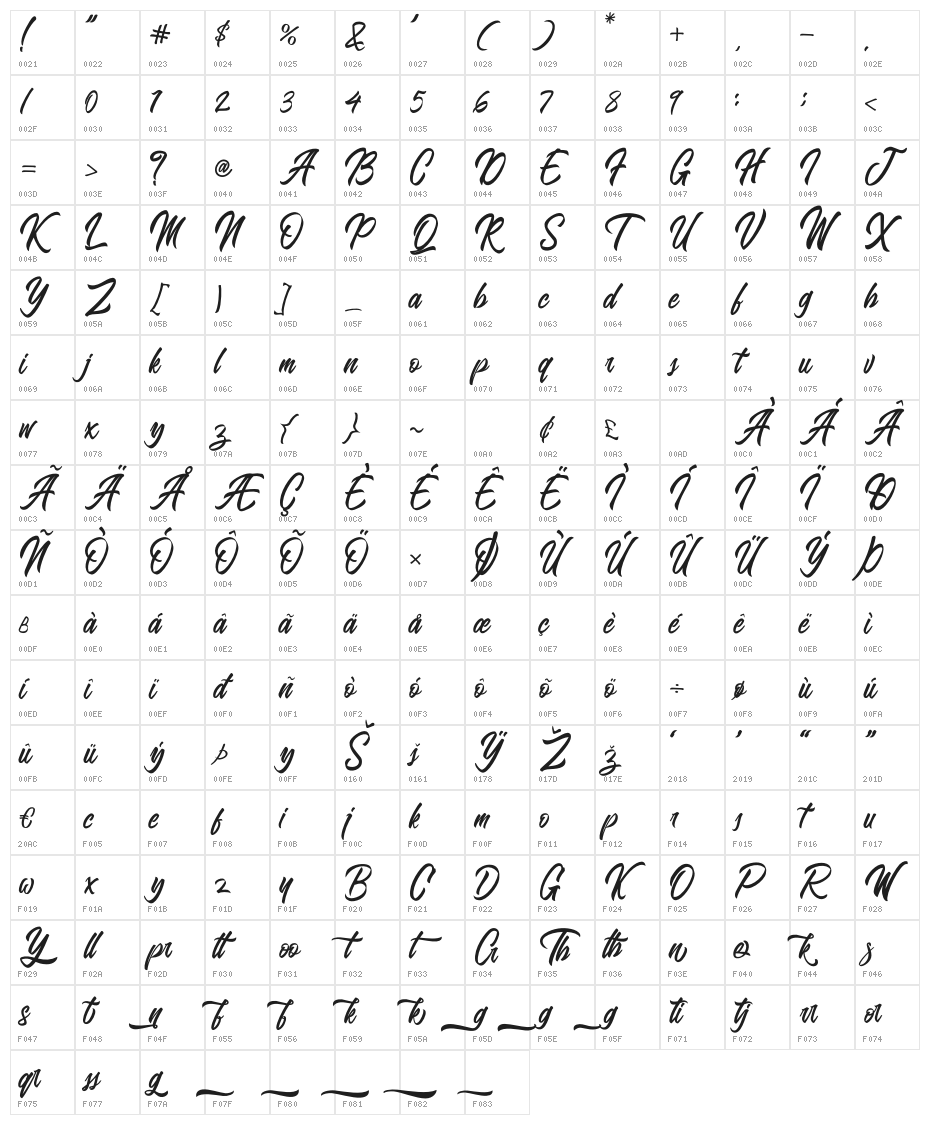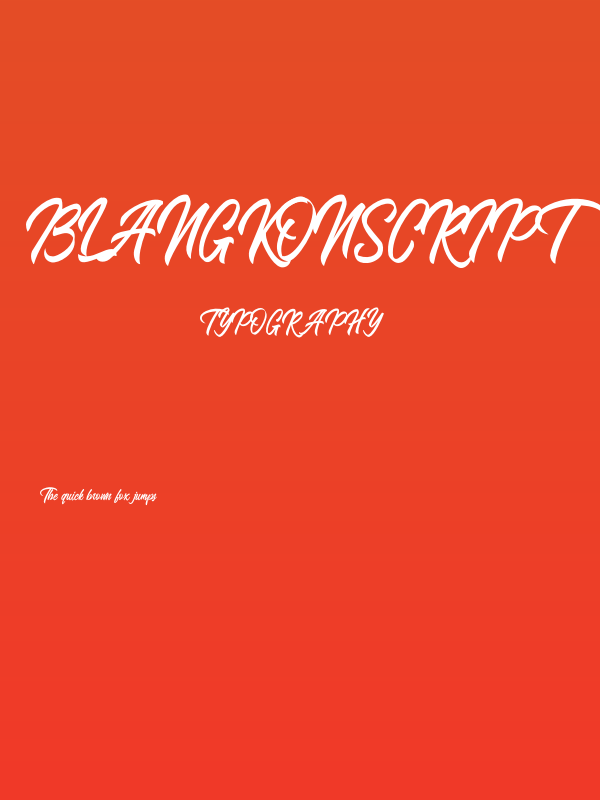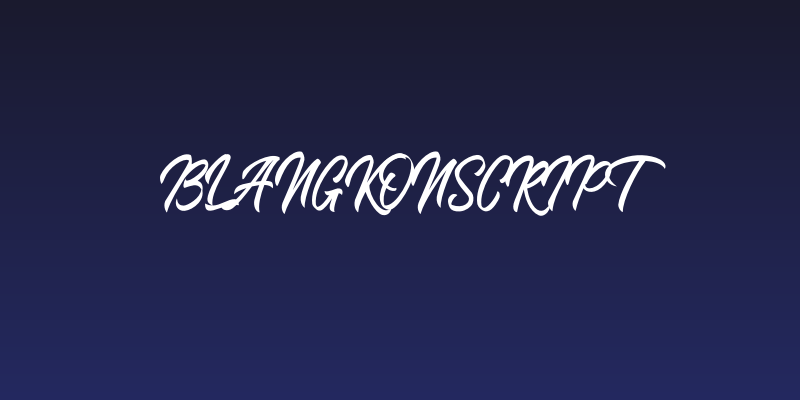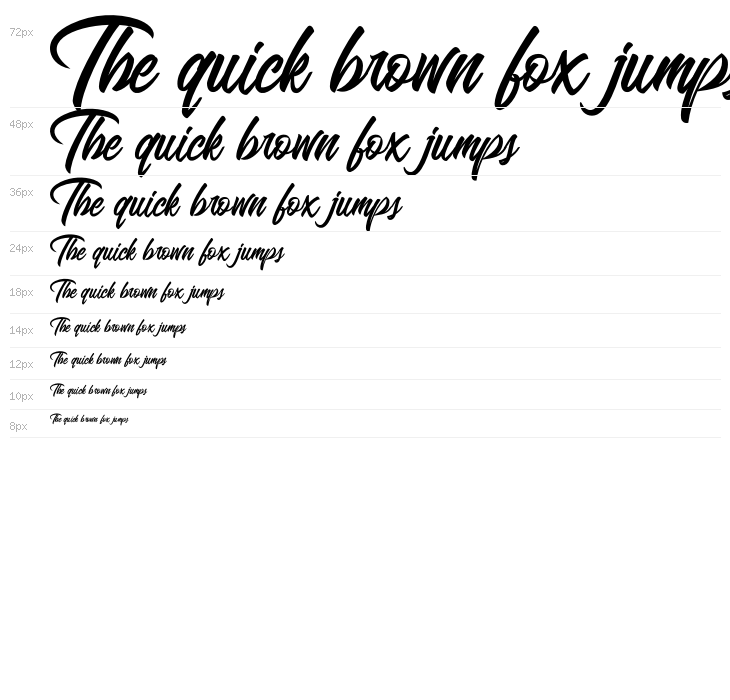
BlangkonScript Font
BlangkonScript Description
This font features a dynamic and expressive script style, characterized by its fluid and flowing letterforms. The uppercase letters exhibit a bold and energetic presence, with sweeping curves and dramatic flourishes that convey a sense of movement and elegance. The lowercase letters maintain a consistent rhythm, with smooth connections between characters that enhance readability while preserving the artistic flair. The numerals and special characters are crafted with the same attention to detail, ensuring a cohesive and harmonious appearance across all elements. This font is ideal for projects that require a touch of sophistication and creativity.
Use CaseLogos, Headlines, Invitations
Proposed ProjectsIdeal for wedding invitations, branding, logo design, and elegant packaging.